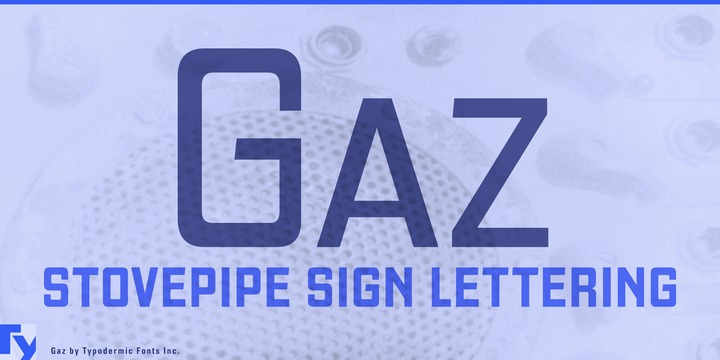
Gaz Font
Gaz Font is perfect for automotive branding projects, industrial design portfolios, energy company communications, mechanical engineering presentations, urban signage systems, and transportation-themed marketing materials. This powerful typeface excels in manufacturing company identities, technical documentation, motorsports promotions, and any application where industrial strength and mechanical precision communicate reliability and performance.
What makes Gaz Font so exciting is its exceptional ability to embody the raw power and mechanical excellence of industrial machinery through bold, engineered letterforms. The font features strong geometric construction, precise angles, and robust character shapes that evoke the reliability of well-built engines and industrial equipment. Its commanding presence immediately communicates strength, efficiency, and technical expertise.
Gaz Font comes in a mechanical family including Light, Regular, Medium, Bold, and Ultra Bold weights. Each style features complete uppercase and lowercase character sets, technical symbols, industrial numerals, and mechanical punctuation marks. The font family also includes condensed variants, stencil alternates, and engineering-inspired ligatures that provide designers with comprehensive tools for creating authentic industrial communications.
This formidable typeface transforms business communications into powerful statements of industrial capability and mechanical excellence. Gaz Font Free Download empowers automotive and industrial professionals to enhance their brands with typography that reflects their commitment to quality engineering and performance. Whether you're developing identities for automotive companies, creating technical presentations, or designing materials for manufacturing firms, this font delivers authentic industrial impact with professional authority.
The font's mechanical character makes it particularly suitable for automotive manufacturers, energy companies, industrial equipment suppliers, and engineering consultancies. Its superior legibility ensures that Gaz Font performs exceptionally across all industrial applications while maintaining its distinctive powerful character. The font's ability to convey strength and technical competence makes it an essential tool for any project requiring typography that builds confidence and communicates industrial expertise with uncompromising quality and mechanical precision.